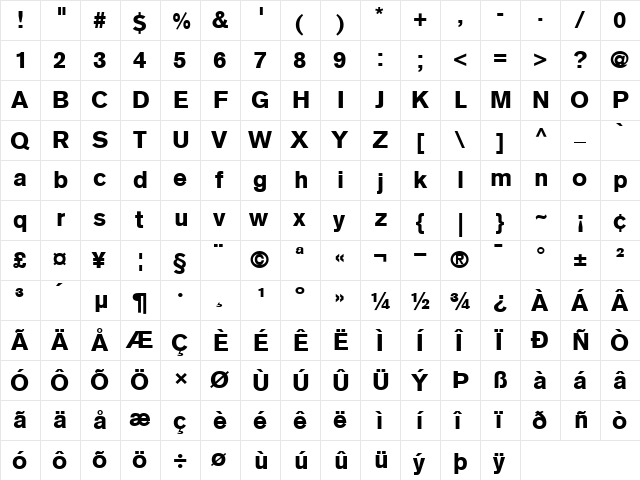
AkzidenzGrotesk Regular
Design Context for AkzidenzGrotesk Typeface
AkzidenzGrotesk has the quiet confidence of well-executed sans-serif typography: versatile, unobtrusive, and dependable at any size.
Font Pairing: Works well alongside a characterful serif or display font that can carry the expressive load while AkzidenzGrotesk handles the functional copy.
Pro Tip: Pair AkzidenzGrotesk with a display or serif font for headlines — its neutral character makes it an excellent supporting player in complex typographic systems.